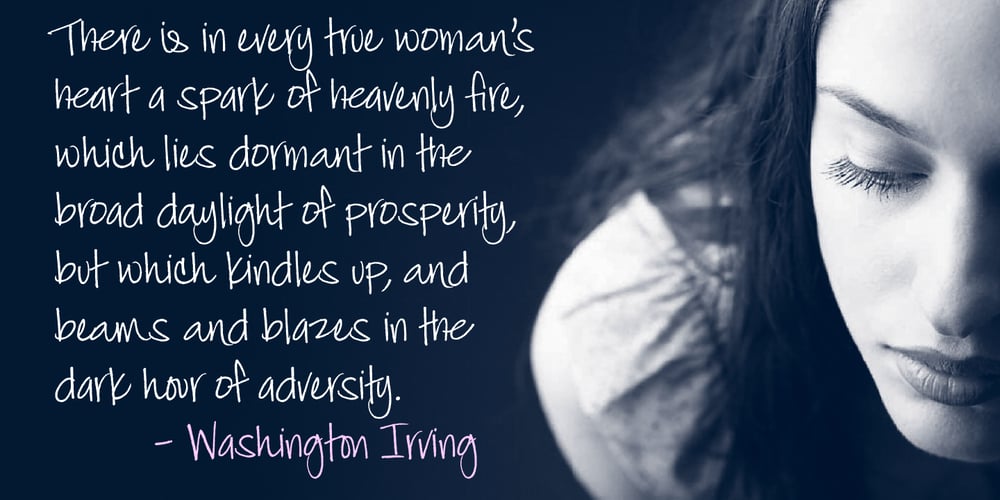
Jackie Sue BF
Jackie Sue BF font
Jackie Sue BF Font Family was designed by John Bomparte, Jackie Geerlings and published by Bomparte’s Fonts. Jackie Sue BF contains 1 styles and family package options. Based on the free-spirited handwriting style of a friend, this font features automatic ligatures, alternate character substitutions and swashes in applications that are OpenType-savvy.